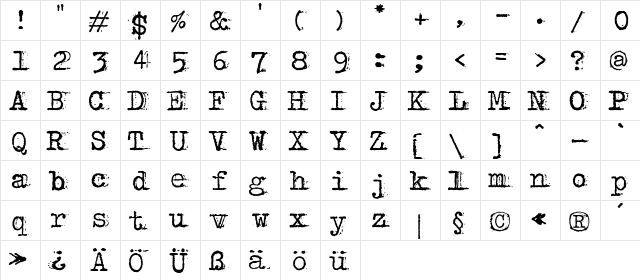
bulkyRefuse Type Normal
Design Context for bulkyRefuse Type Typeface
bulkyRefuse Type takes a measured approach to typography — its balanced proportions and neutral character make it a reliable workhorse for both digital and print work.